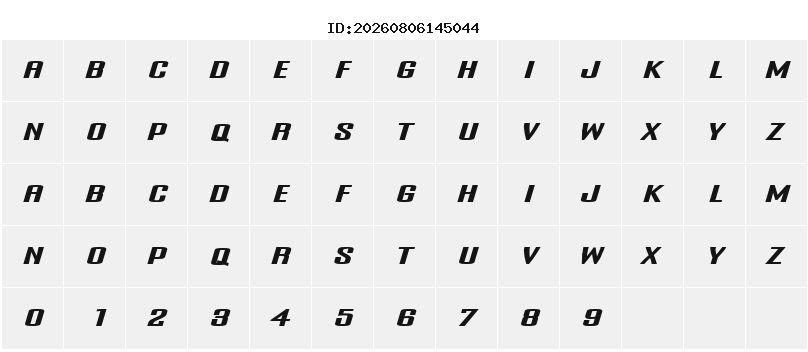
• Font Name: Onani
• Full Font Name: Onani
About Onani.ttf
Onani.ttf is a modern, elegant sans-serif font designed for ultimate readability and visual harmony. Perfect for branding, headlines, web design, and print materials.